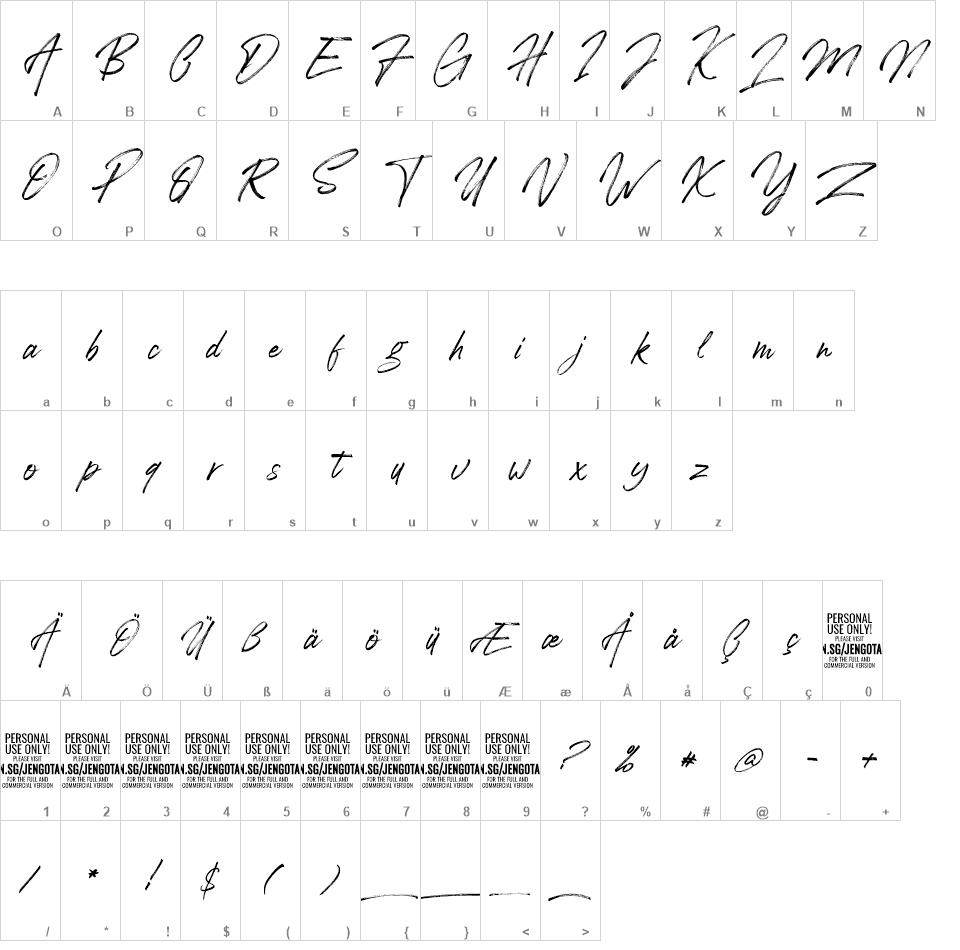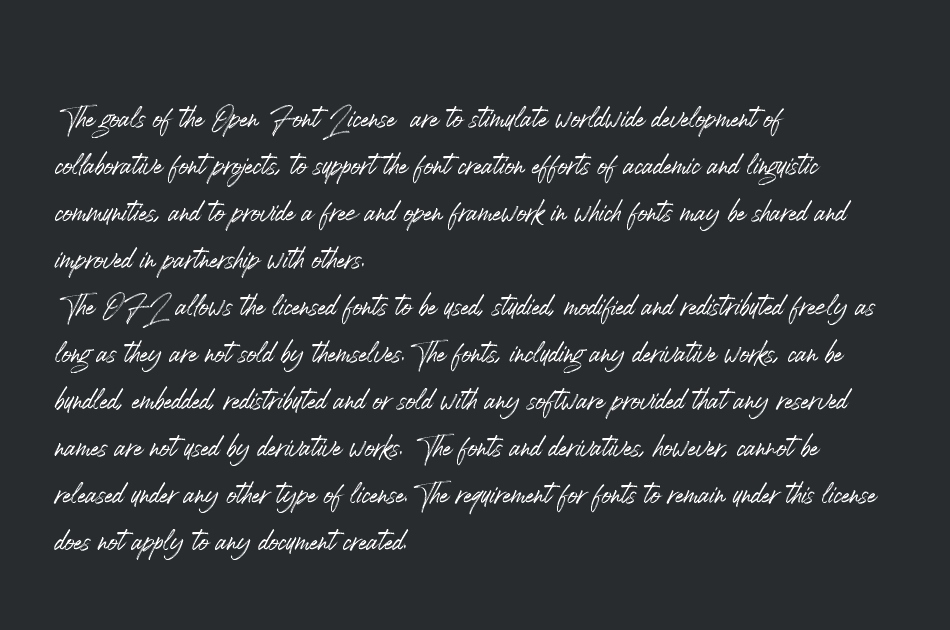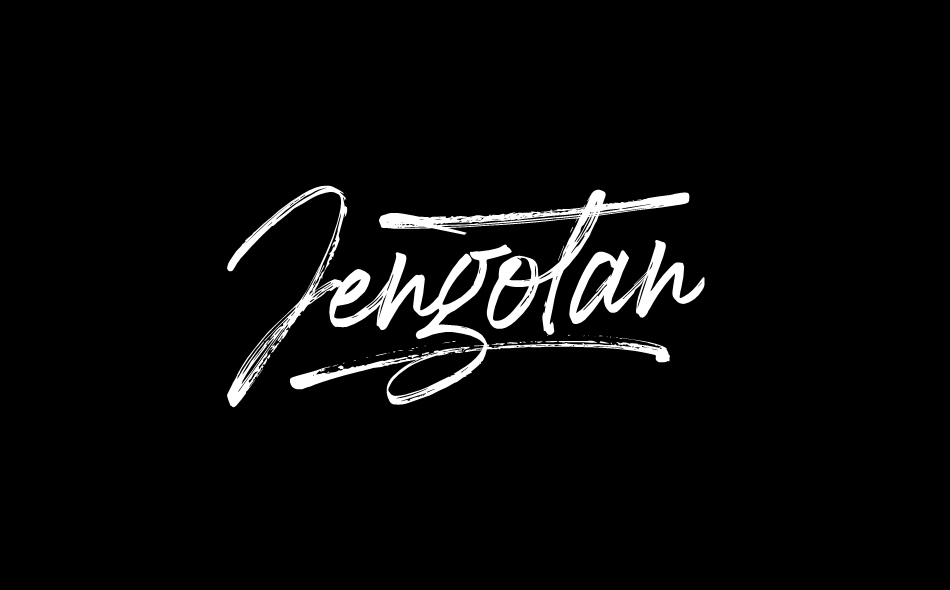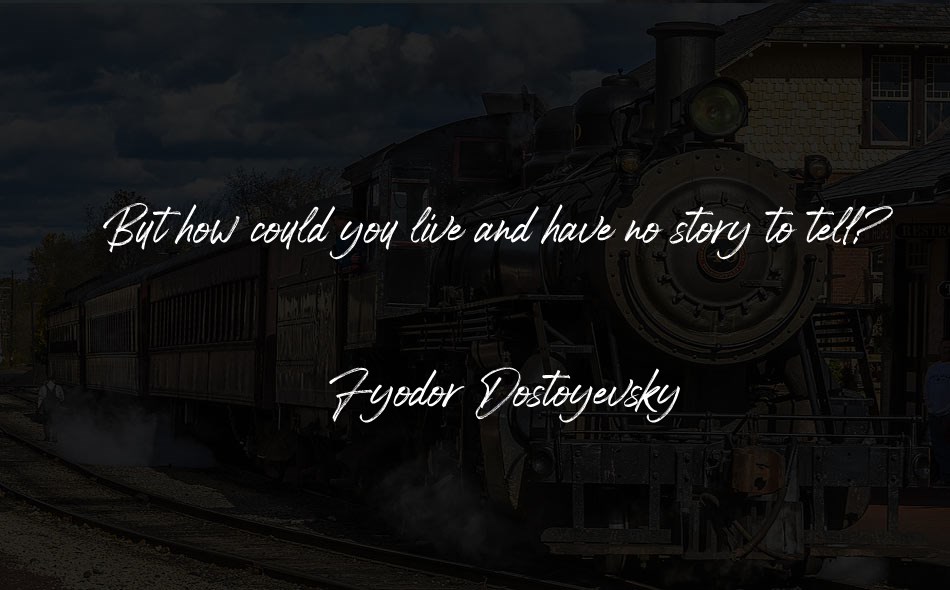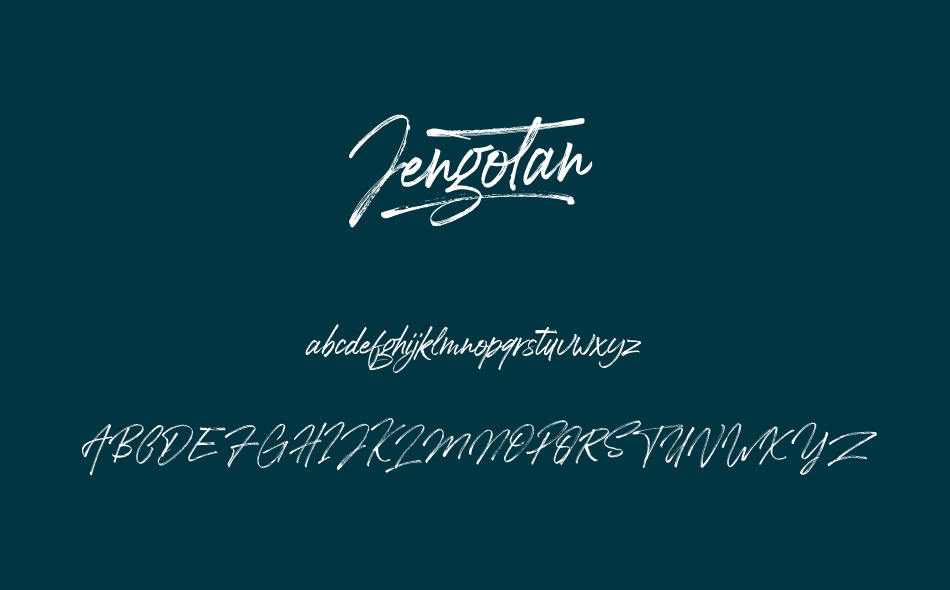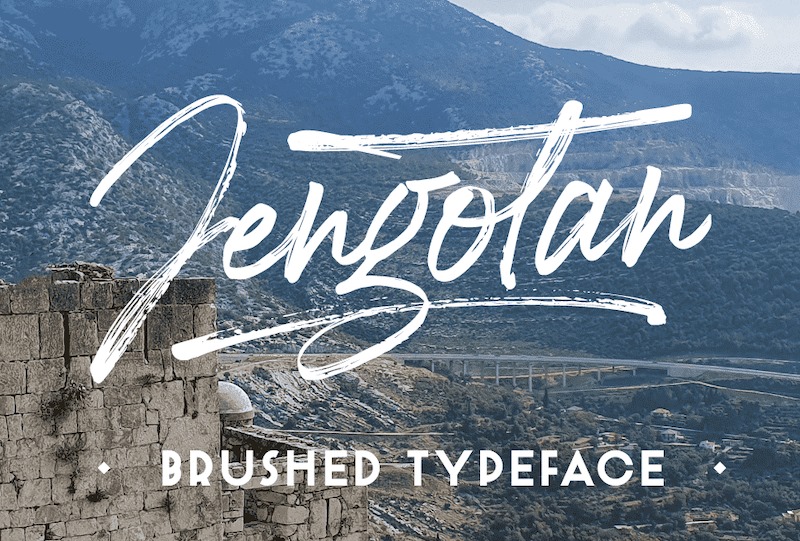
Jengotan font
Use [ ] { } < > anywhere in a word to create a swash.
Example: Jeng{otan
Jengotan is a rapid script, hand-painted with a brush to give a great contrast between thick and thin curves. It is drawn, scanned and vectorized from paper to screen, with the intent of being an authentic brush typeface, leaving the texture and imperfections the way they are, resulting in a vivid style for projects that requires dynamic handwriting.
Use [ ] { } < > anywhere in a word to create a swash. Example: Jeng{otan
In addition to the Jengotan font, also included is the Upright variation.
The lettering is suitable for quotes, logos, watermarks on photography, signatures, branding, advertisement, album covers, business cards, clothing, magazines, posters, and more!
It is a font of very extensive lingual support, covering all European Latin scripts. The font contains all characters you'll ever need, including all punctuation and numbers.